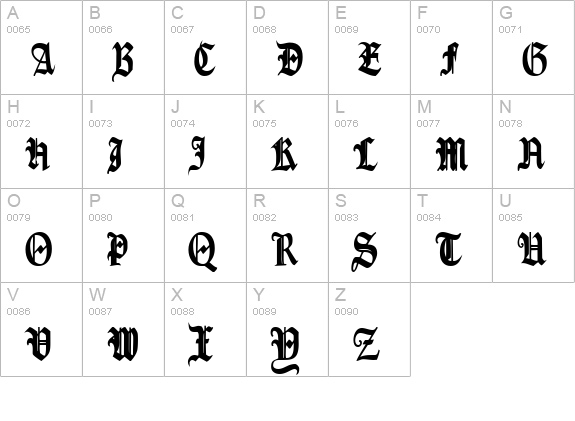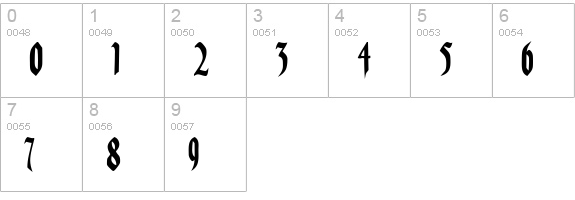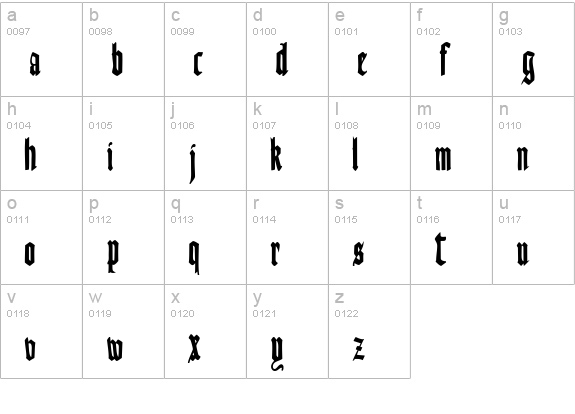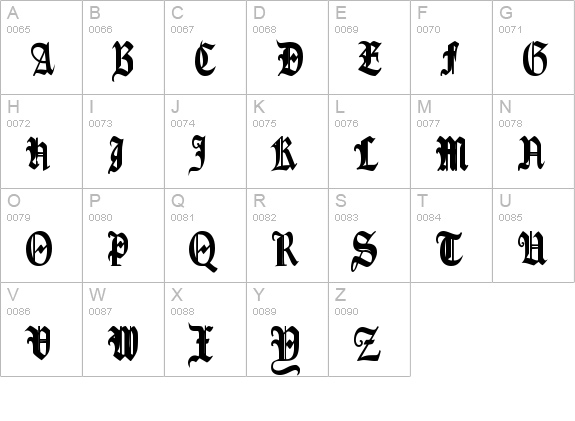
AinsworthSSK Bold Font Details
AinsworthSSK Bold is a strong, high-contrast variant in the AinsworthSSK typeface family \xE2\x80\x94 well suited to headlines, attention-grabbing titles, and strong calls-to-action.
AinsworthSSK Bold font is a striking and versatile typeface that exudes confidence and modernity. With its bold and strong presence, this font is ideal for creating impactful headlines, titles, and branding materials. The clean lines and sharp edges of AinsworthSSK Bold make it perfect for projects that require a bold statement. Best of all, AinsworthSSK Bold font is available for free download at FontsMarket.com. Whether you're designing a poster, website, or any other creative project, AinsworthSSK Bold font will add a touch of sophistication and professionalism to your work. Don't miss out on the opportunity to elevate your designs with this stylish and impactful font - download AinsworthSSK Bold today for free!